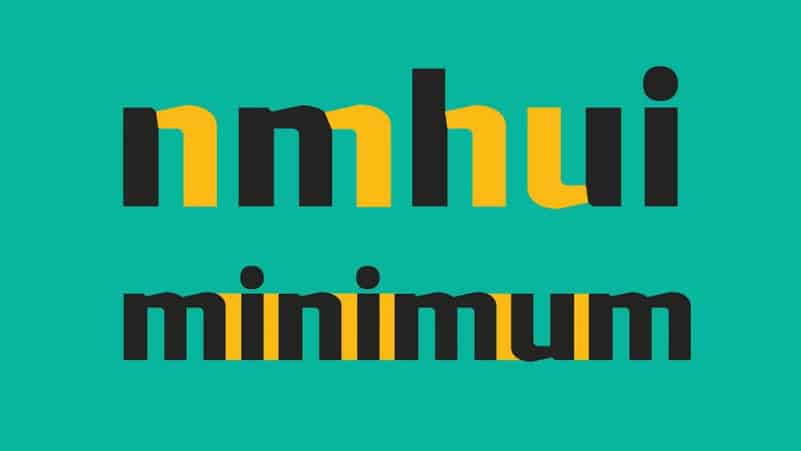
Big Bro Sans Serif Font
Big Bro Sans Serif Font is a futuristic modern sans serif style with Uppercase and Lowercase feel nice balanced. Provide alternates font in Uppercase with wider style make the design letter looks incridible. Made from font designer named Tapiwanashe Sebastian Garikayi . And It’s a free sans serif typeface with personality. It comes with full set of glyphs, including support of some languages. This font works well for headlines, posters, banners, social media and other artworks.